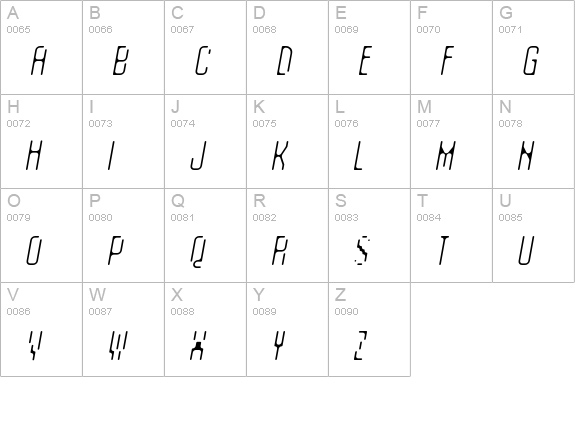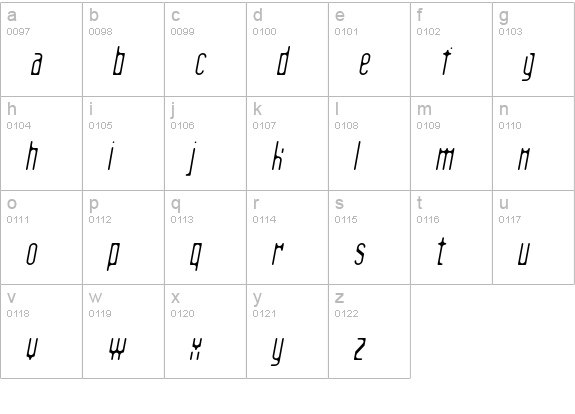
Matica-SubnormalOblique is a unique and stylish font that combines modern aesthetics with a touch of playfulness. With its slanted and off-kilter design, this font exudes a sense of creativity and individuality. The varying thickness of the strokes adds visual interest and makes it stand out from other fonts. What makes Matica-SubnormalOblique even more appealing is that it is available for free download at FontsMarket.com. Whether you're working on a personal project or a professional design, this font is sure to add a touch of personality and flair to your work. Embrace the unconventional and make a statement with Matica-SubnormalOblique font today!